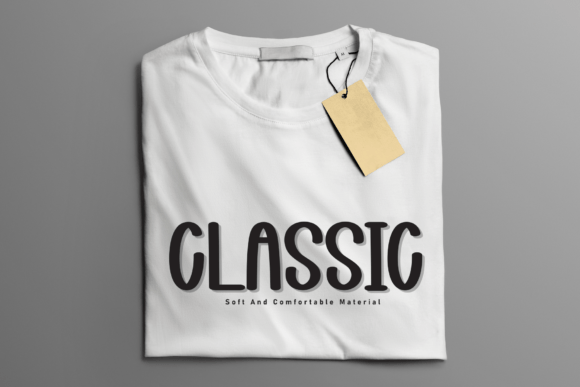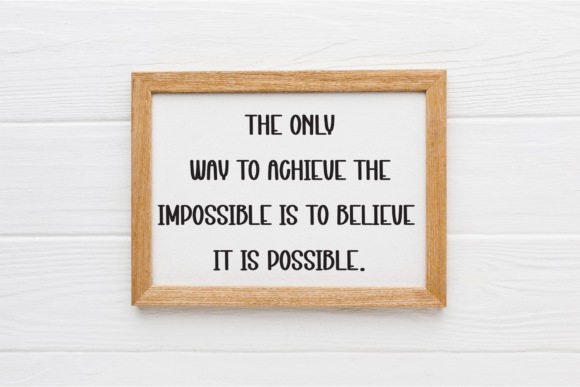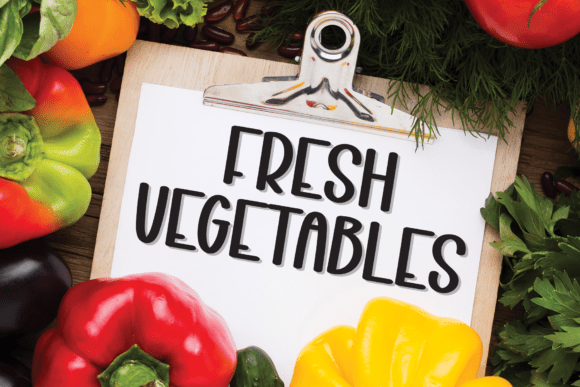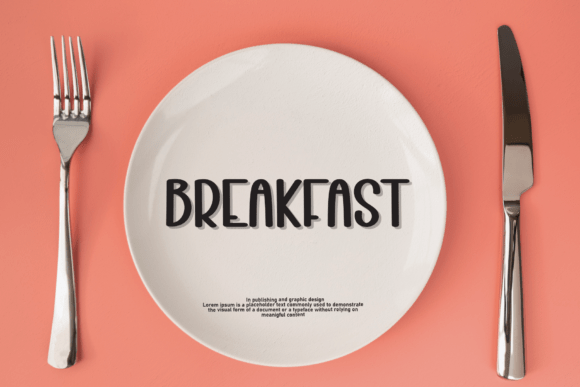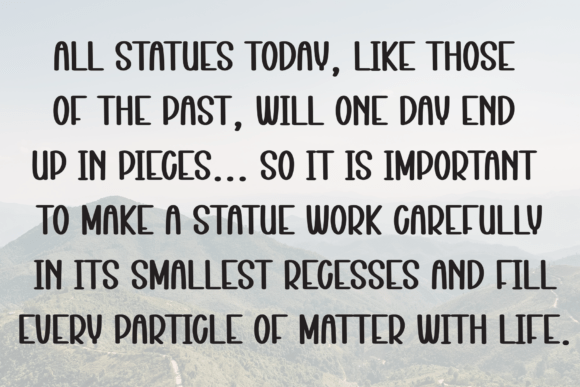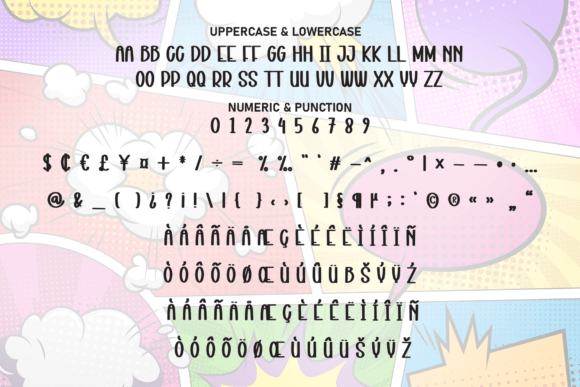
Unleash Your Inner Superhero: The Power of Comic Book Font
Are you looking for a font that packs a punch? Do you want to add a burst of energy to your designs, craft projects, or digital creations? Look no further than the Comic Book Font, a high-impact, comic-inspired display font that’s sure to save the day!
What is Comic Book Font?
Comic Book Font is a bold, eye-catching typeface that’s inspired by the classic comic books of yesterday and today. With its strong outlines and lively character, this font is perfect for adding a touch of superhero flair to any project. Whether you’re a designer, crafter, or digital artist, Comic Book Font is the perfect tool to help you create attention-grabbing headlines, speech bubbles, action panels, and more.
Key Features of Comic Book Font
- Strong Outlines: The Comic Book Font features bold, confident outlines that give your text a dynamic, high-energy feel.
- Lively Character: With its playful, energetic vibe, this font is perfect for adding a touch of personality to your designs.
- High-Impact: The Comic Book Font is designed to make a statement, making it perfect for titles, headings, and other high-impact text elements.
- Versatile: This font is suitable for a wide range of projects, from digital designs to craft projects, and everything in between.
Uses for Comic Book Font
The Comic Book Font is incredibly versatile, and can be used in a variety of contexts, including:
- Speech Bubbles: Add a touch of comic book flair to your speech bubbles and bring your characters to life.
- Action Panels: Create dynamic, high-energy action panels that draw your readers in.
- Titles and Headings: Use the Comic Book Font to create bold, eye-catching titles and headings that make a statement.
- Digital Designs: Add a touch of superhero energy to your digital designs, from social media graphics to blog posts.
- Craft Projects: Use the Comic Book Font to add a personal touch to your craft projects, from handmade cards to DIY decorations.
Tips for Using Comic Book Font
To get the most out of the Comic Book Font, try the following tips:
- Use it sparingly: While the Comic Book Font is bold and eye-catching, it can be overwhelming if used too much. Use it sparingly to add emphasis and create visual interest.
- Experiment with colors: The Comic Book Font looks great in bold, bright colors, but don’t be afraid to experiment with different color schemes to find the perfect look for your project.
- Pair it with other fonts: The Comic Book Font pairs well with a variety of other fonts, from clean sans-serifs to bold script fonts. Experiment with different pairings to find the perfect combination for your project.
The Comic Book Font is a powerful tool for designers, crafters, and digital artists looking to add a touch of superhero energy to their projects. With its strong outlines, lively character, and high-impact design, this font is perfect for creating attention-grabbing headlines, speech bubbles, action panels, and more. So why wait? Unleash your inner superhero and download the Comic Book Font today!